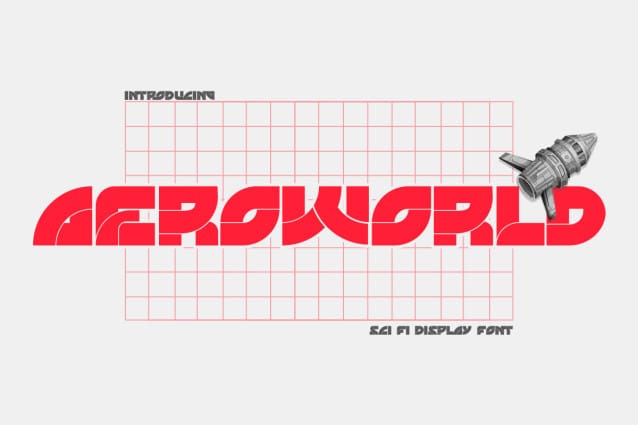
Aeroworld Techno Font
Aeroworld Techno Font is a futuristic font style with sophisticated, modern and minimalist allcaps characters. Its futuristic aesthetics bring a whole new dimension to your designs, making them stand out. Whether you’re working on a website, poster, logo, or any other project, this font adds that extra touch of innovation and sophistication.